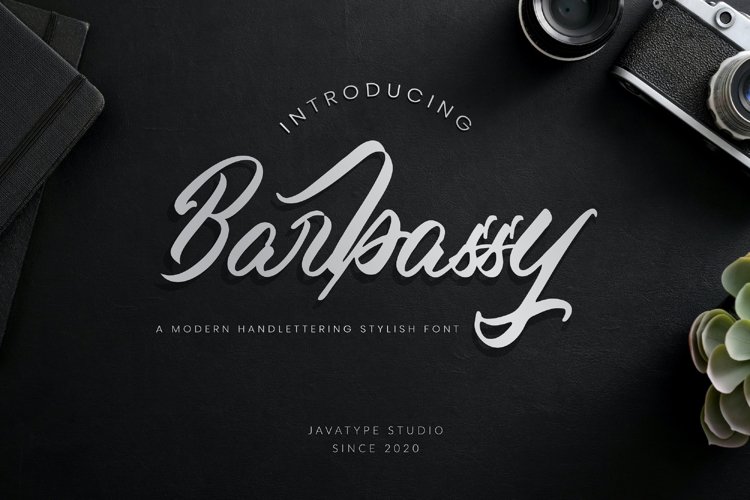
Introducing Barbassy is a modern hand lettering script. This font is made by handwriting directly using a brush pen so that it can produce fonts that have character and art. They work perfectly for you who need a typeface for headline, logotype, apparel, invitation, branding, packaging, advertising, etc. This typeface comes in uppercase, lowercase, punctuation, symbols, numerals, alternate, ligatures, etc also supports multilingual.
This Font Template contains Classy, Elegant, Creative, Cool, and has a Unique Concept.